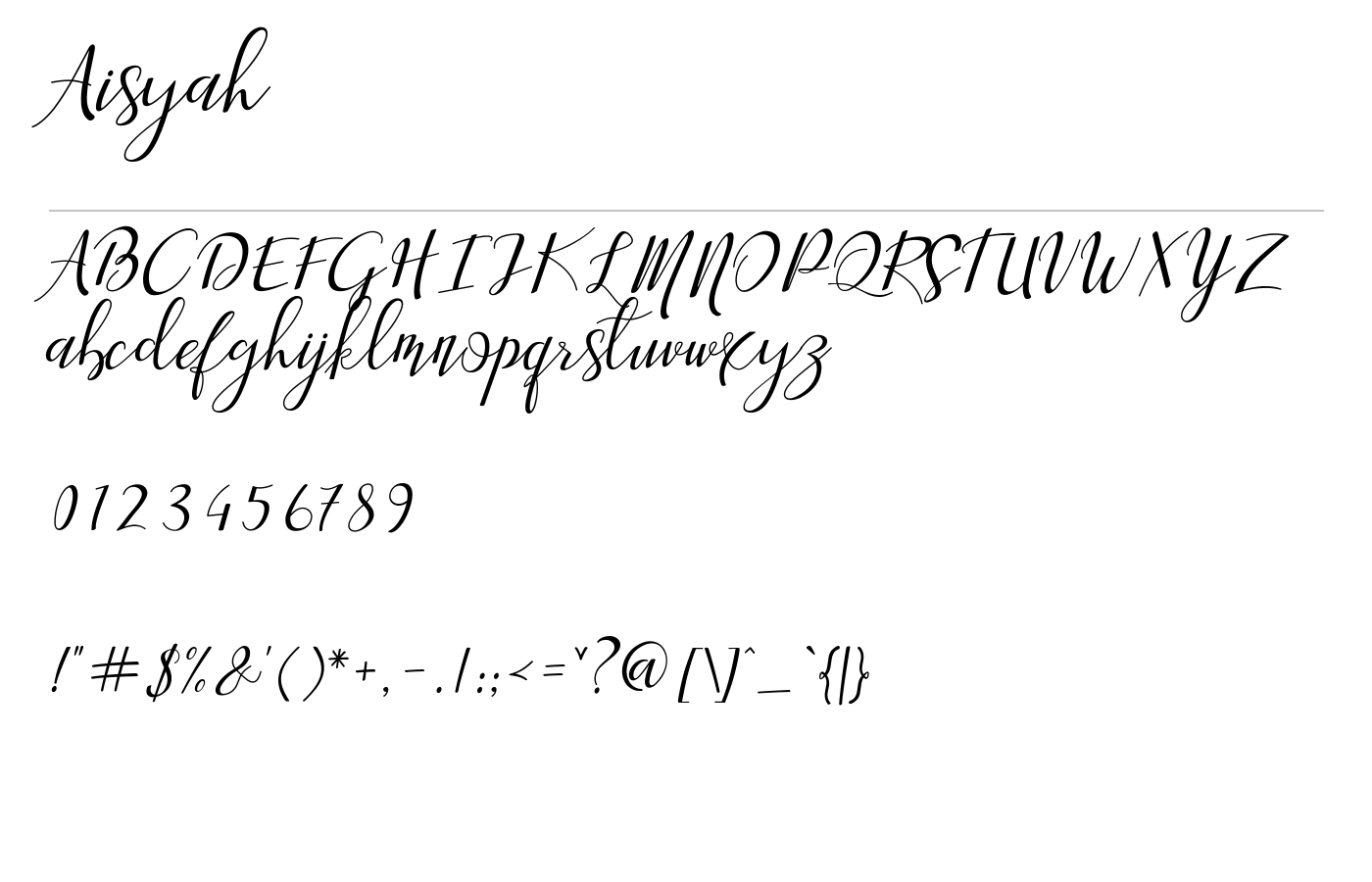
Aisyah Font is an elegant and delicate script typeface with flowing, graceful strokes and a refined, handwritten feel. Its slender letterforms with varying stroke thicknesses and artistic flourishes make it perfect for invitations, branding, and projects that seek a sophisticated, personal touch. Ideal for decorative headlines and logos, it adds a stylish and feminine charm to any design.
Aisyah Font
About Aisyah Font
| Font family | Aisyah Font |
| Designer | Malindo Creative |